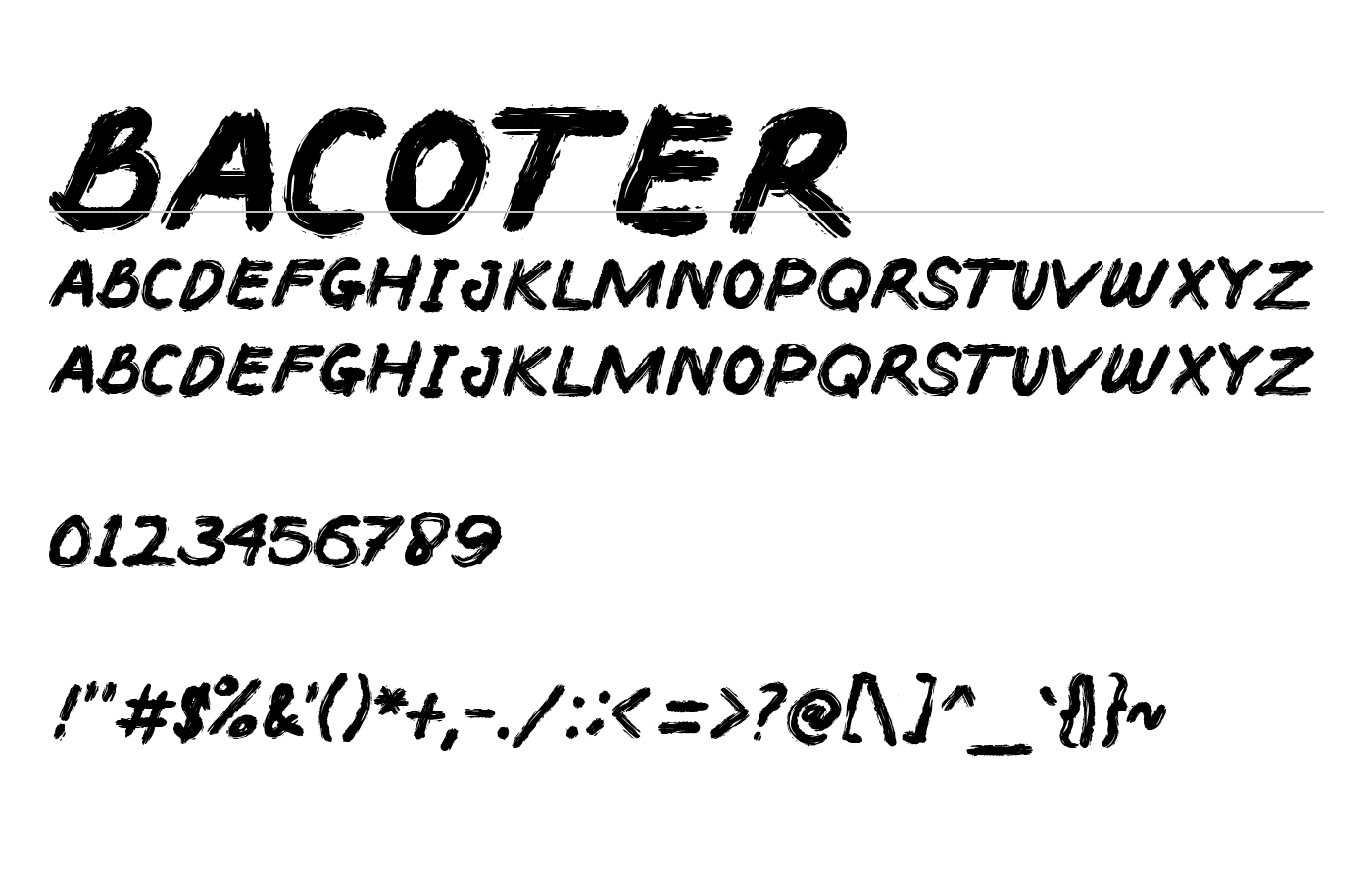
BACOTER is a bold, brush-style sans serif font with a textured, hand-painted feel that brings an energetic and artistic touch to any design. Its slightly condensed letters and playful stroke irregularities give it a dynamic and informal personality, making it perfect for creative projects, headlines, branding, and packaging that aim for a casual yet impactful look. This font works well where a lively, expressive style is needed to catch attention and convey originality.
BACOTER Font
About BACOTER Font